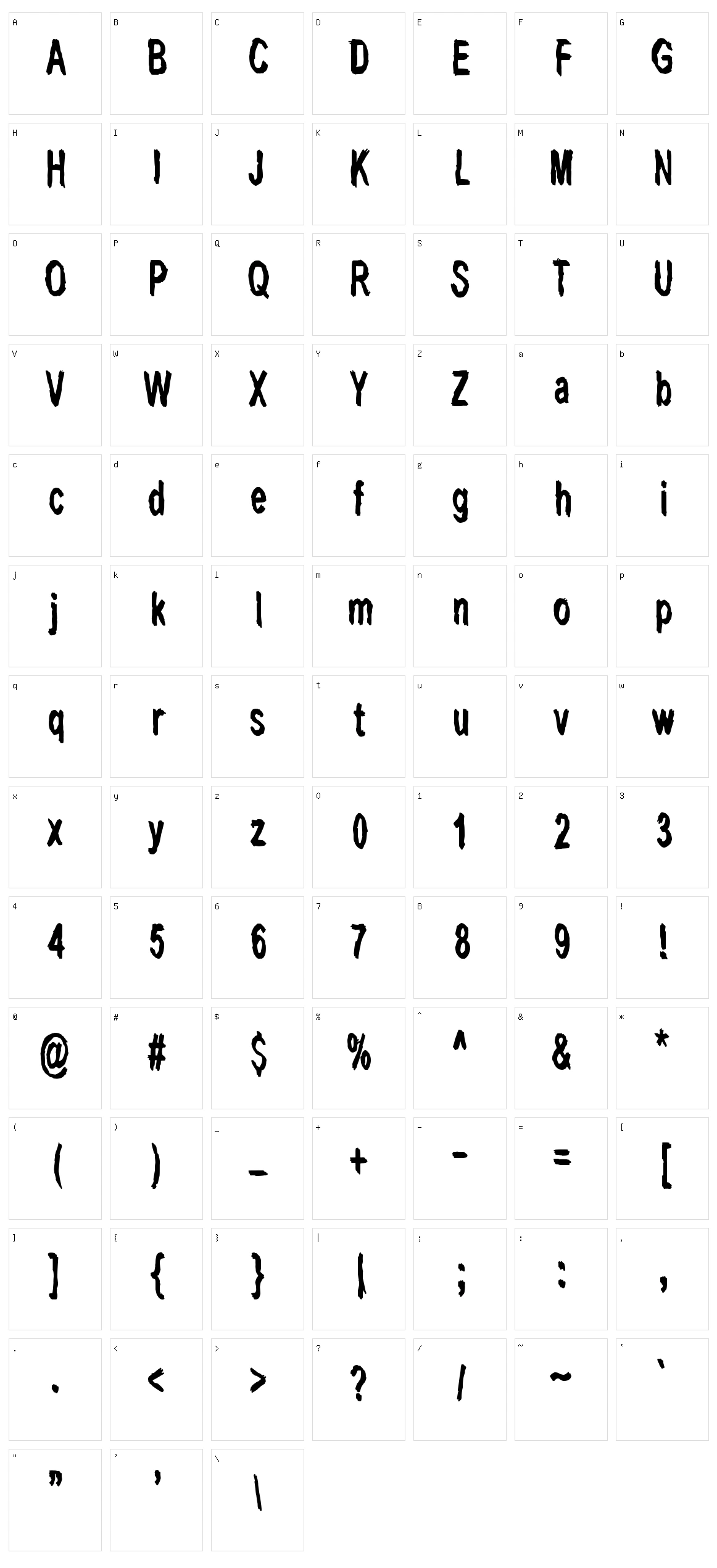
The free font Last living souls is carefully designed by junkohanhero, showcasing a thoughtful balance of creativity and usability and falls under the Eroded font style. When you download the ZIP file, it contains only 1039.47 KB of font files, making it lightweight and quick to download. Please review the license details below to understand permitted usage and distribution rights. If license information is not available, we recommend using this font for personal projects only or contacting the author directly for commercial usage permissions.